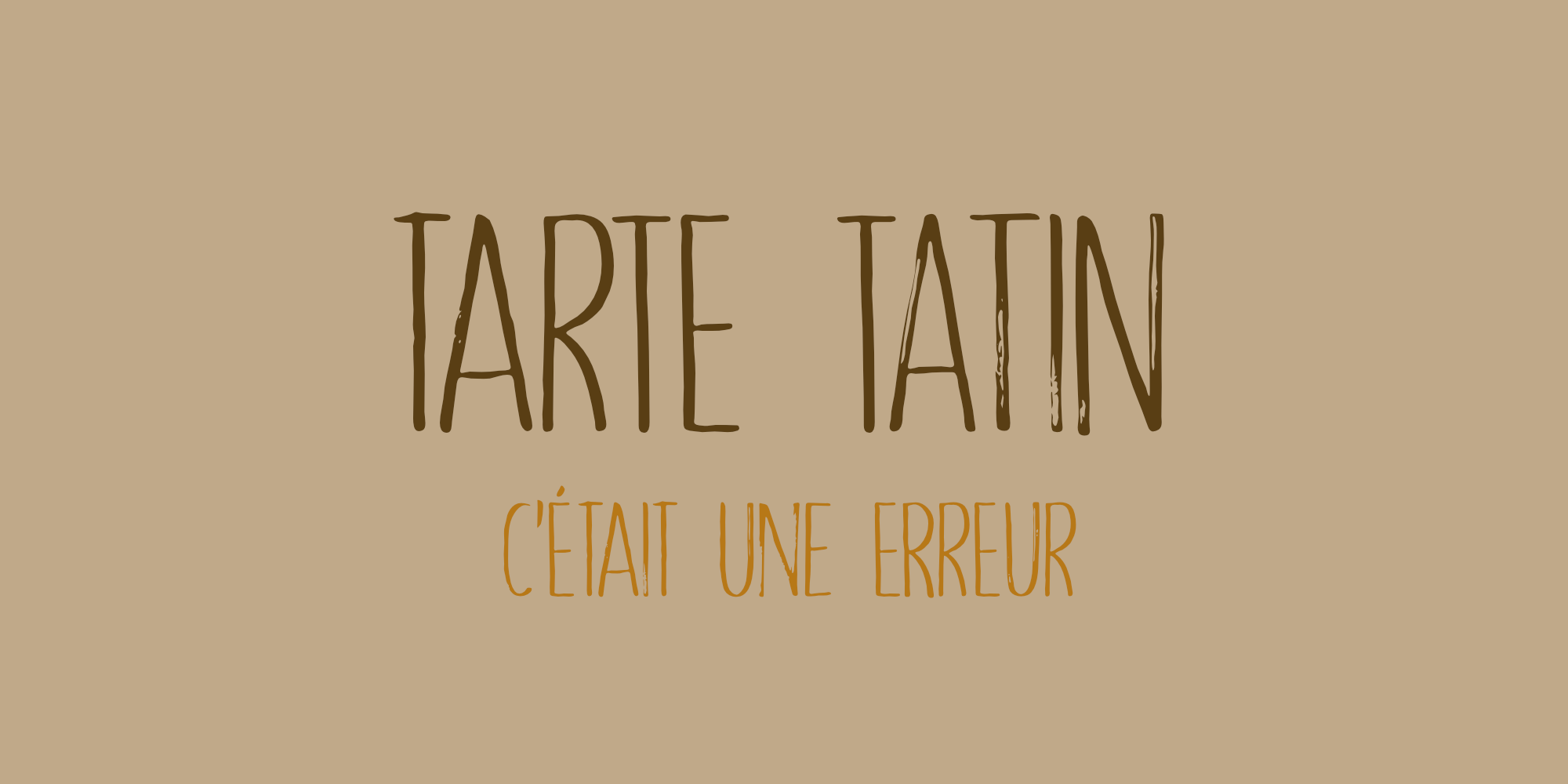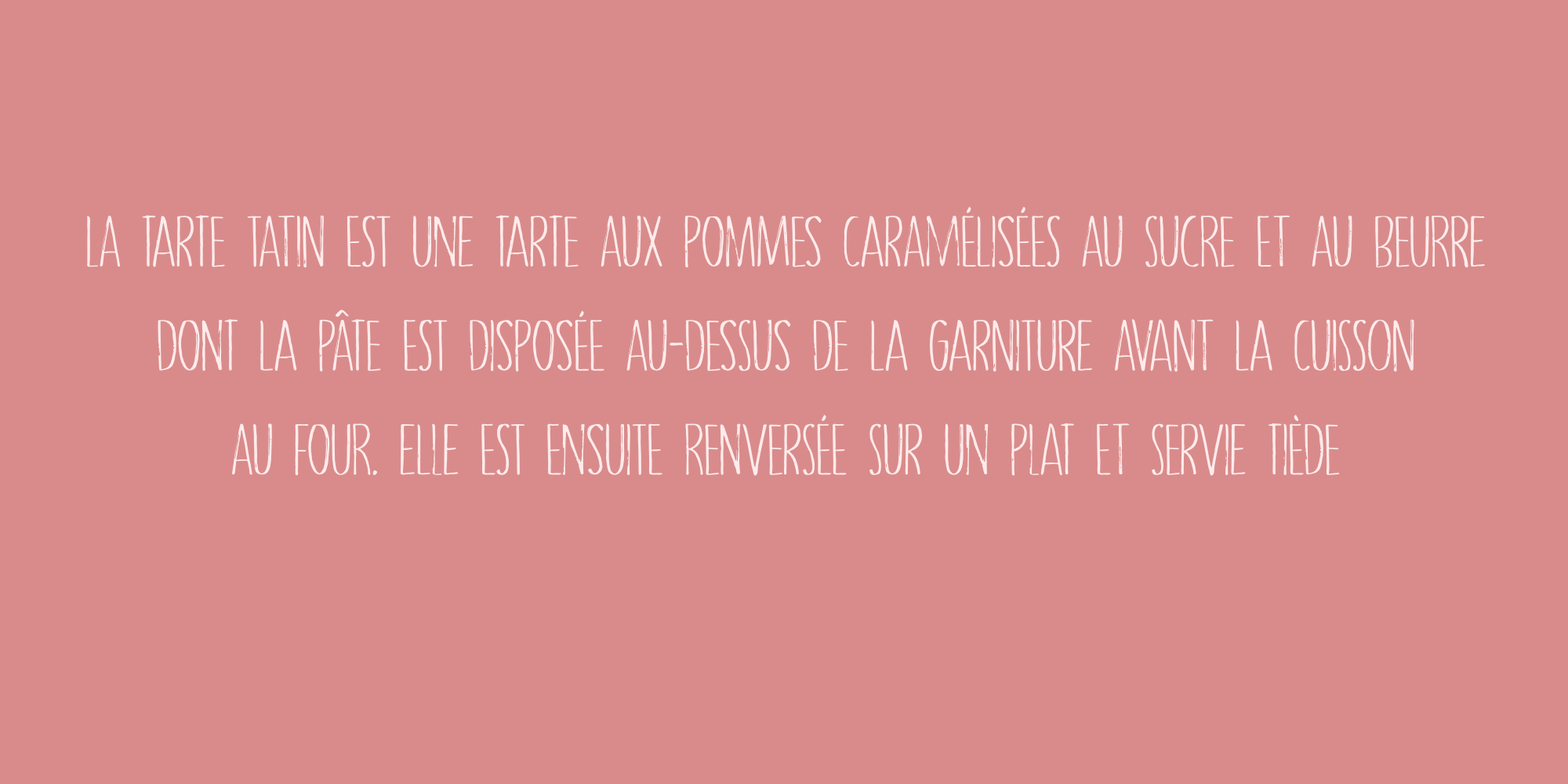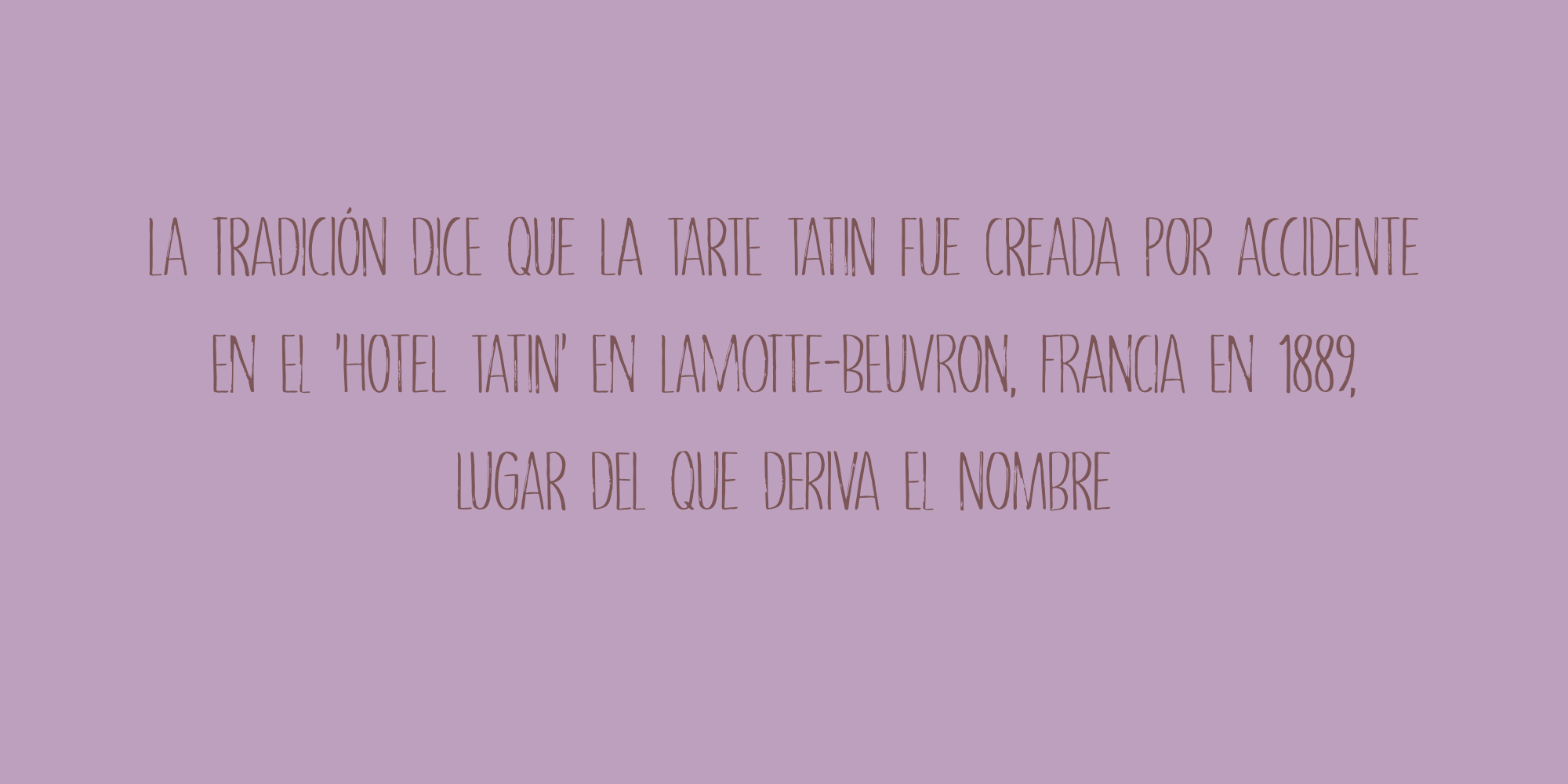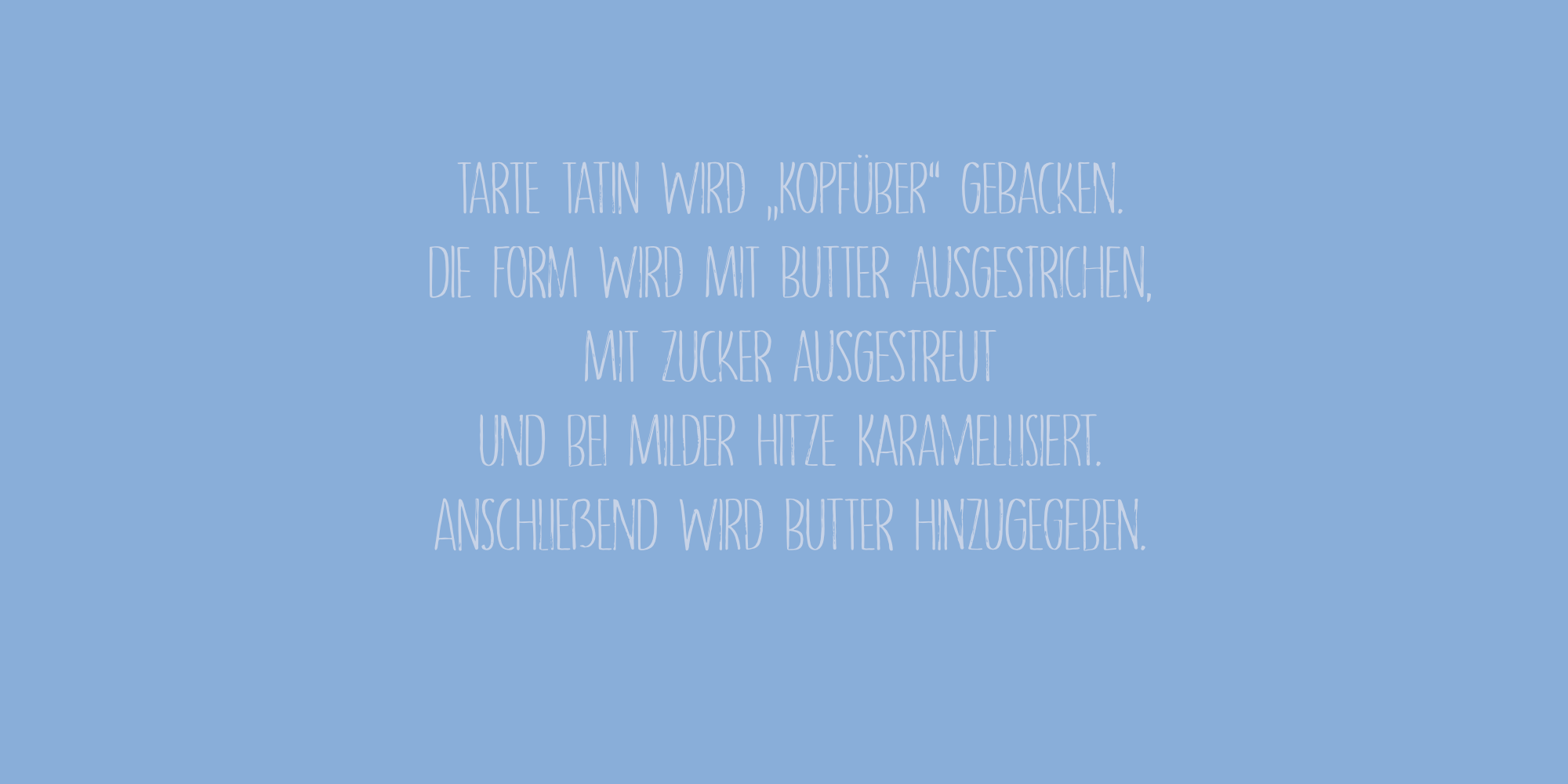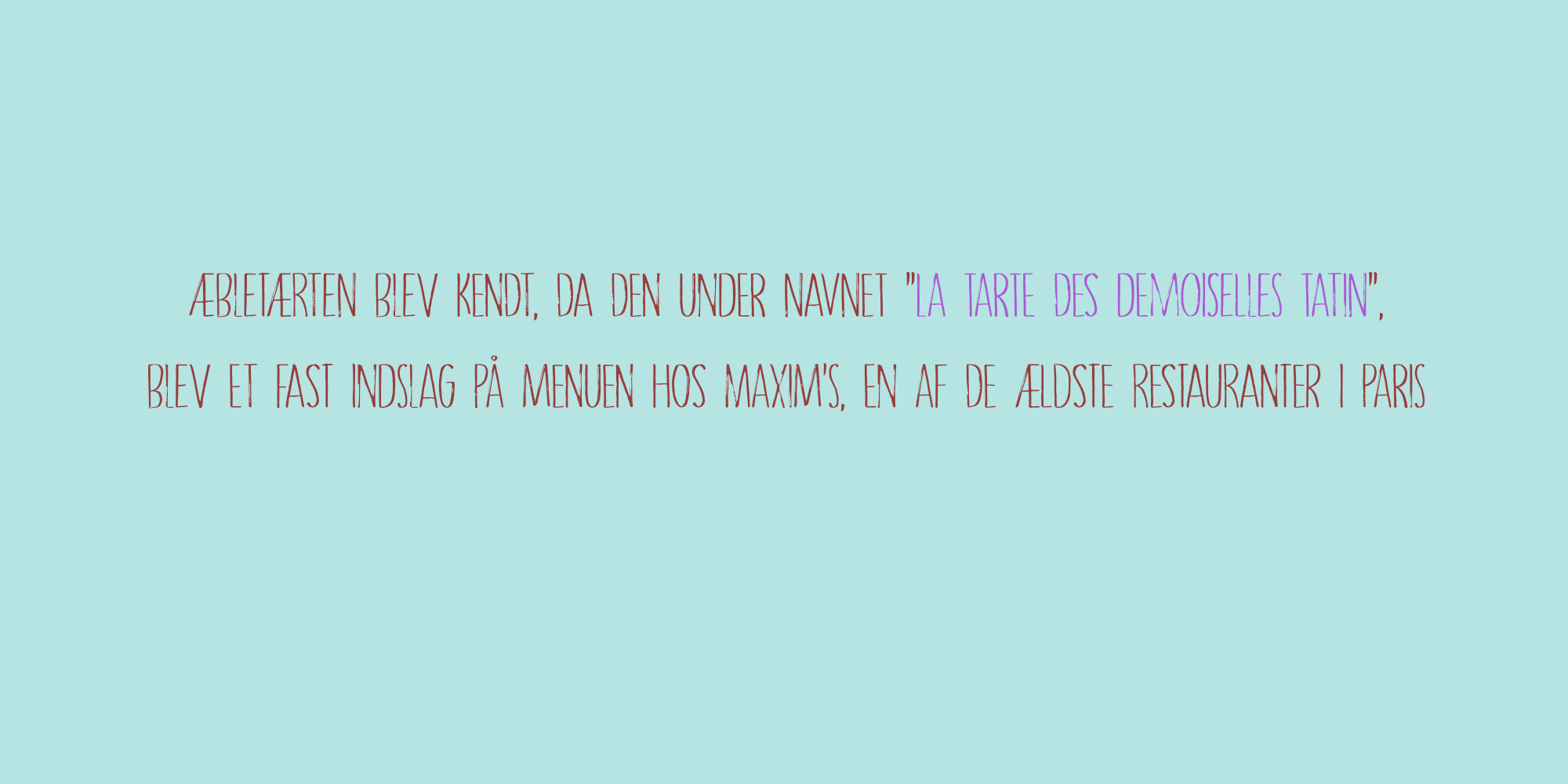
Tarte Tatin (2 fonts)
Tarte Tatin is a really nice all caps font. It was made with a Japanese brush pen on rough paper. Tarte Tatin comes with extensive language support and a set of alternates for the lower case letters.